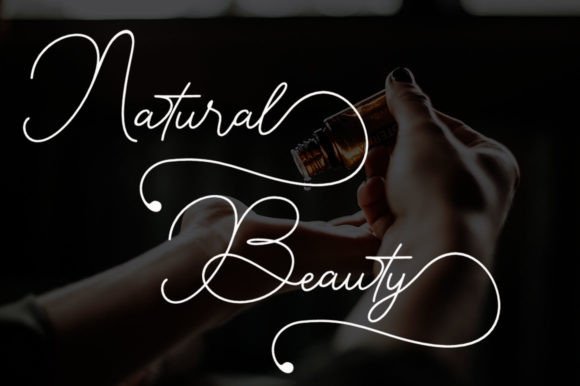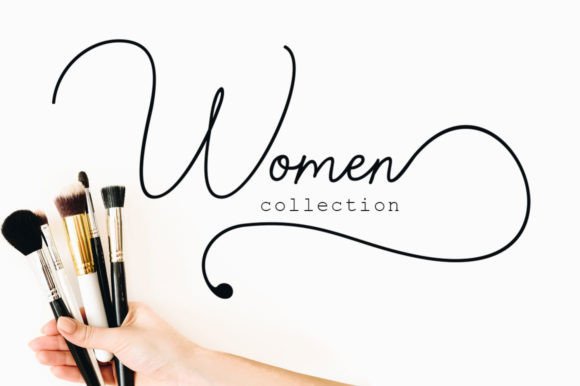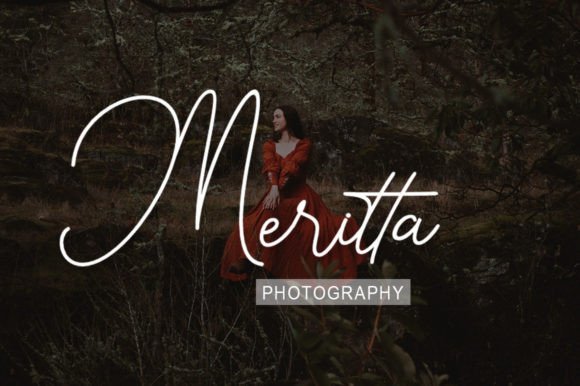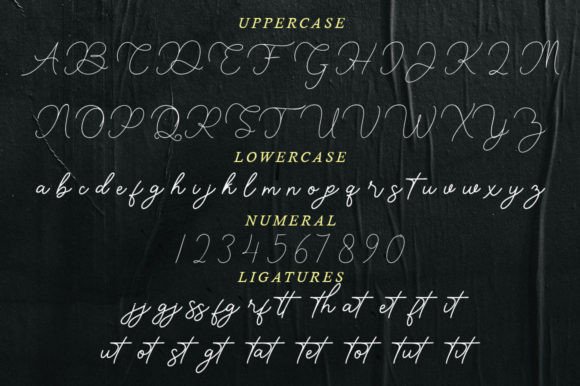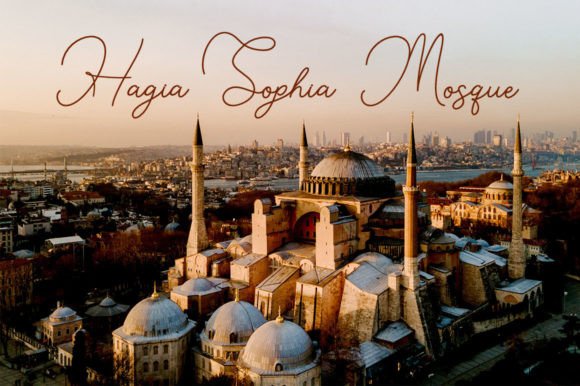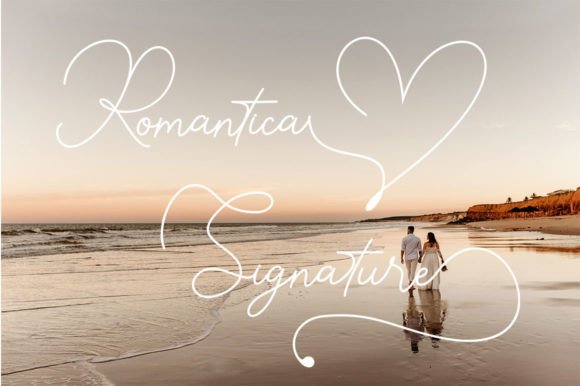
Introduction to Renata Signature Font
Renata Signature is a font that exudes elegance and sophistication with its graceful curves and luxurious flourishes.
Its romantic style captures the essence of a bygone era, making it perfect for wedding invitations, upscale branding, and other high-end design projects Its flowing lines create a beautiful and memorable visual experience.
Key Features of Renata Signature Font
Why Choose Renata Signature Font?